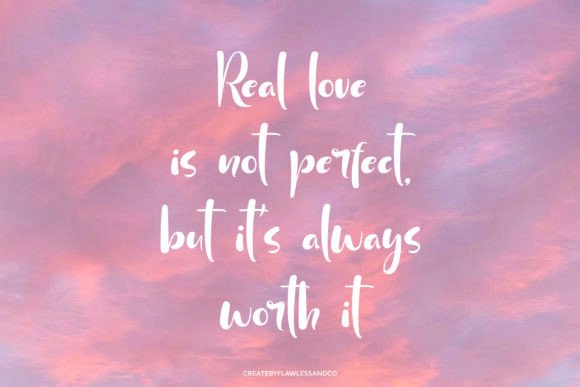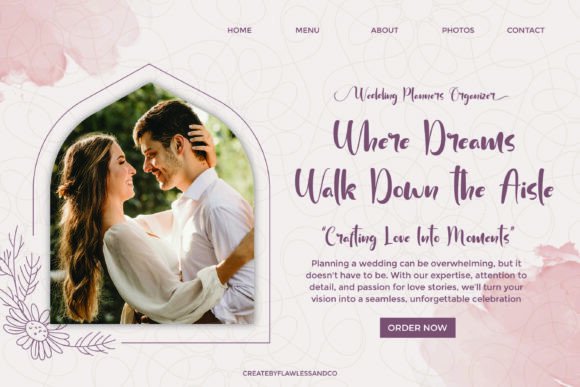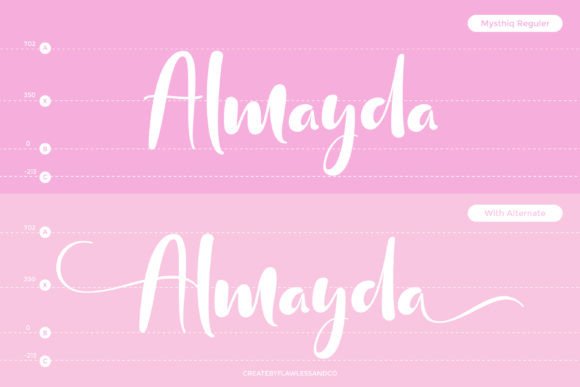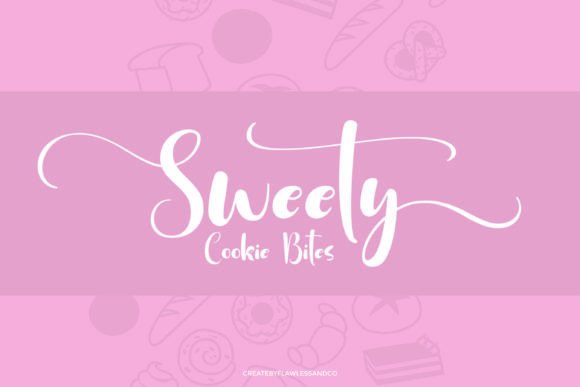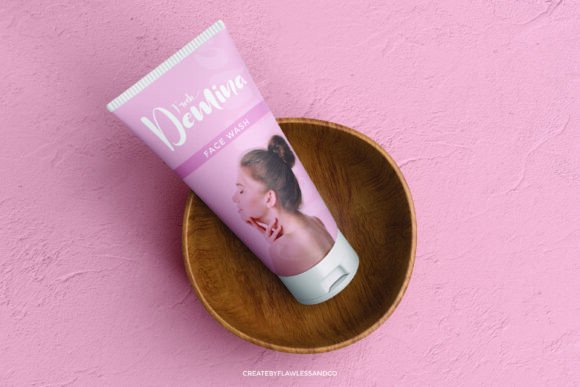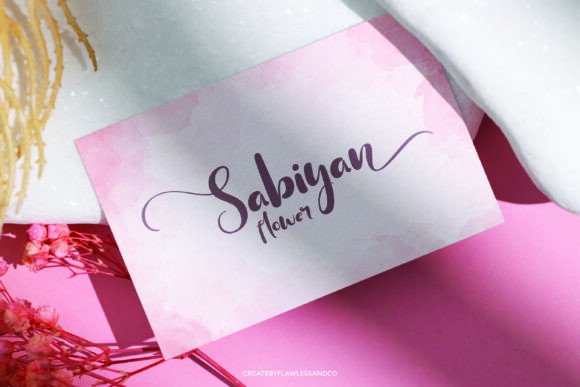
Mysthiq Font – Free Download
Introduction to Mysthiq Font
Mysthiq is an elegant and stylish modern script font designed to bring a perfect blend of sophistication and creativity to your designs.
With its graceful curves and contemporary feel, Mysthiq captures attention effortlessly while maintaining a timeless charm .
Key Features of Mysthiq Font
Why Choose Mysthiq Font?